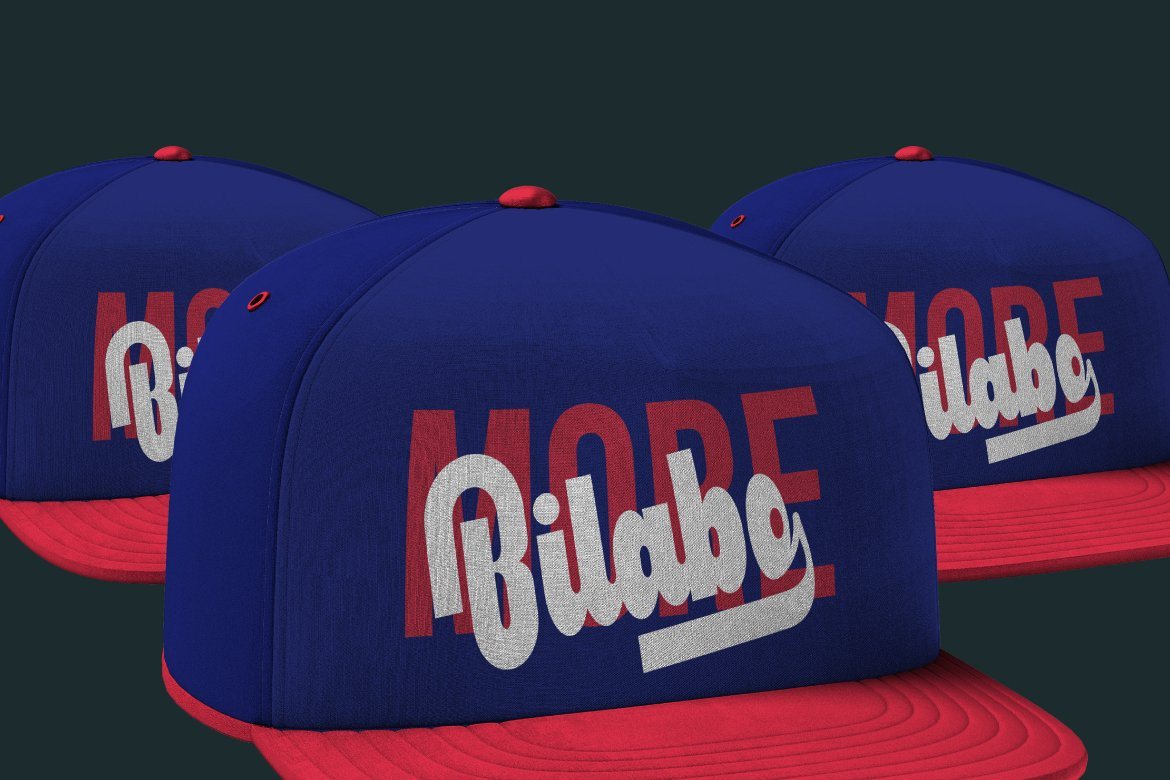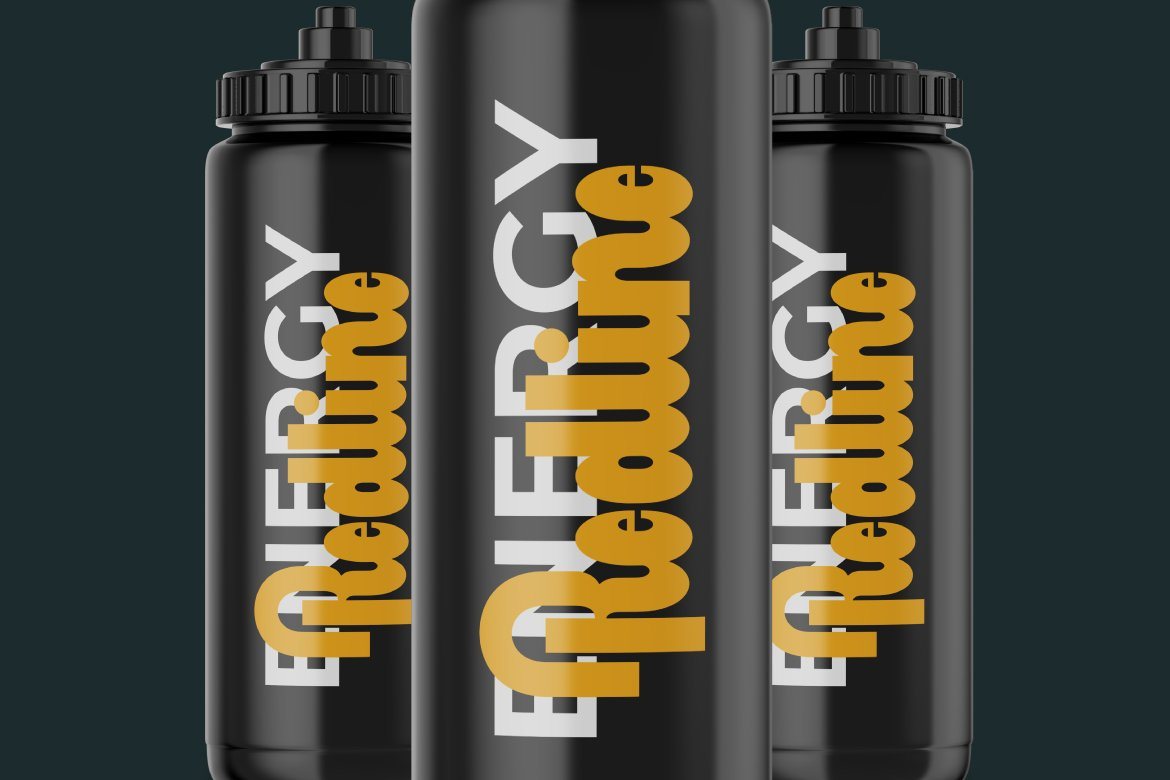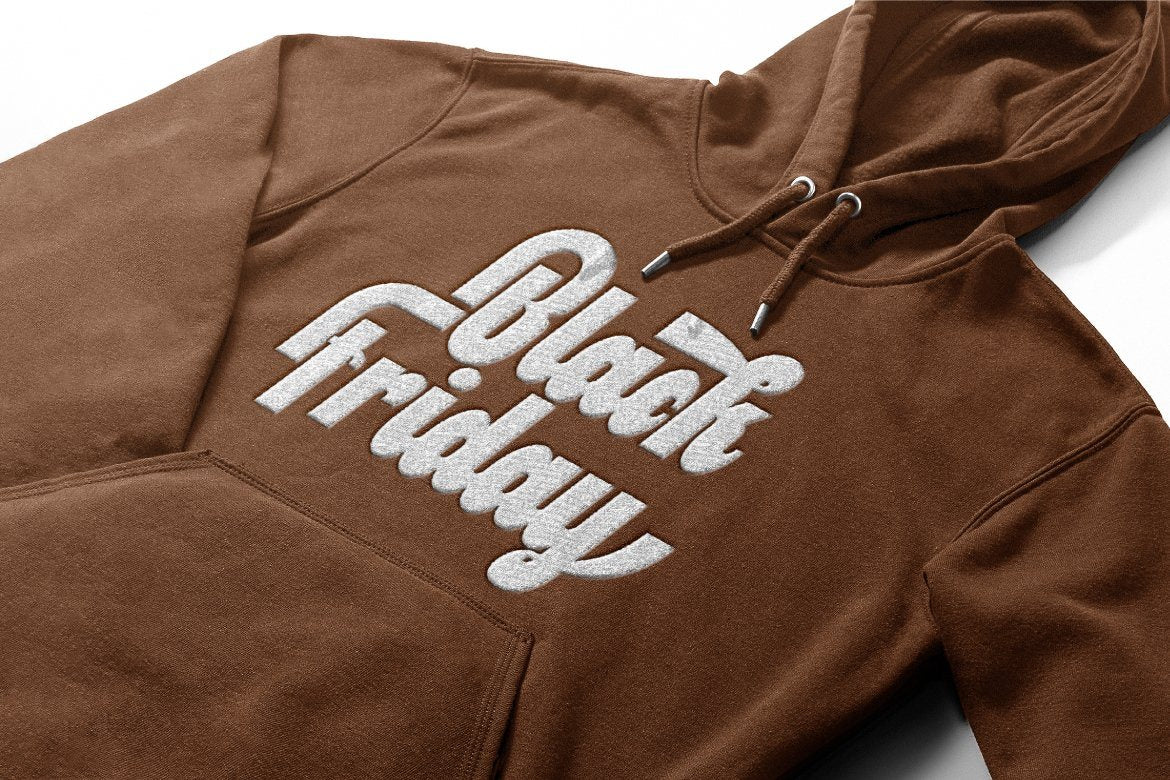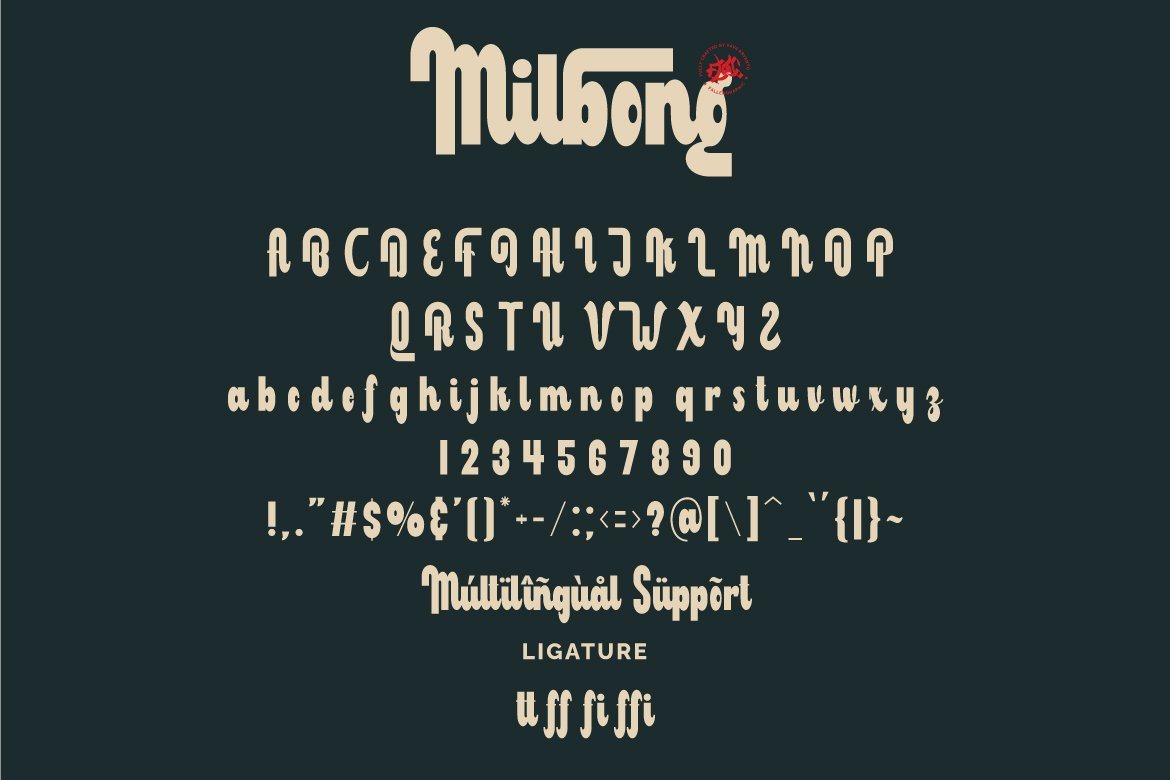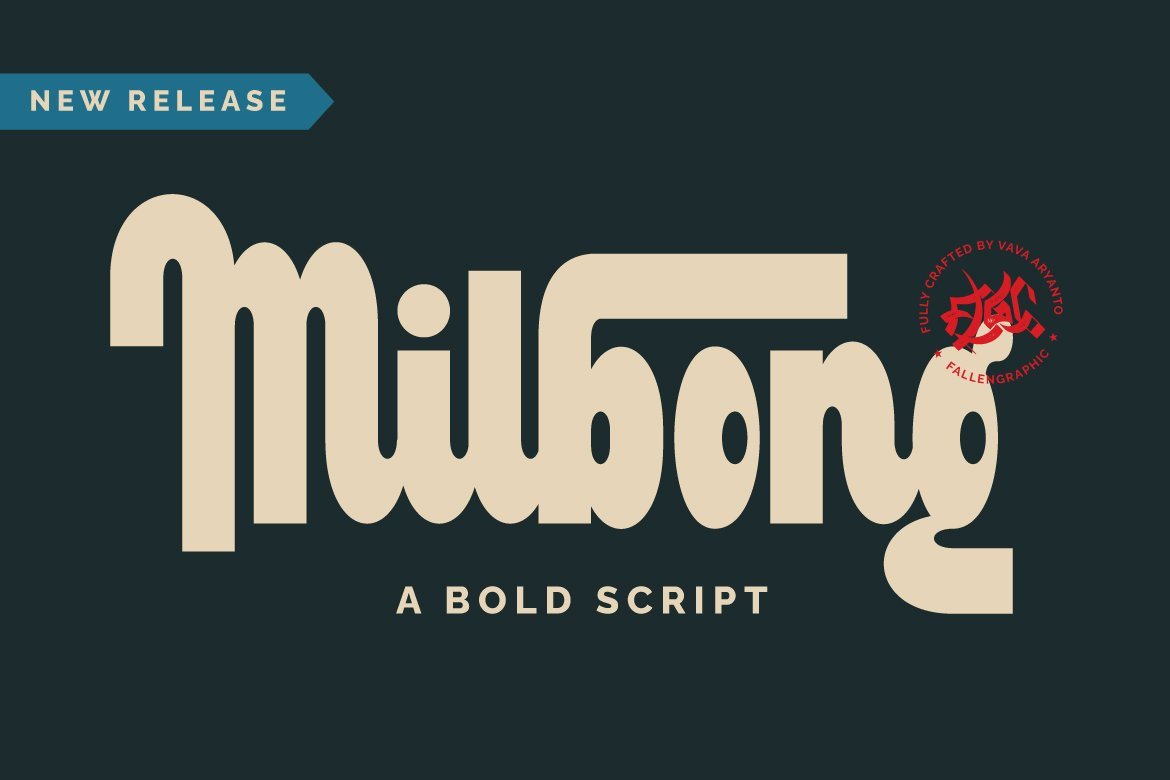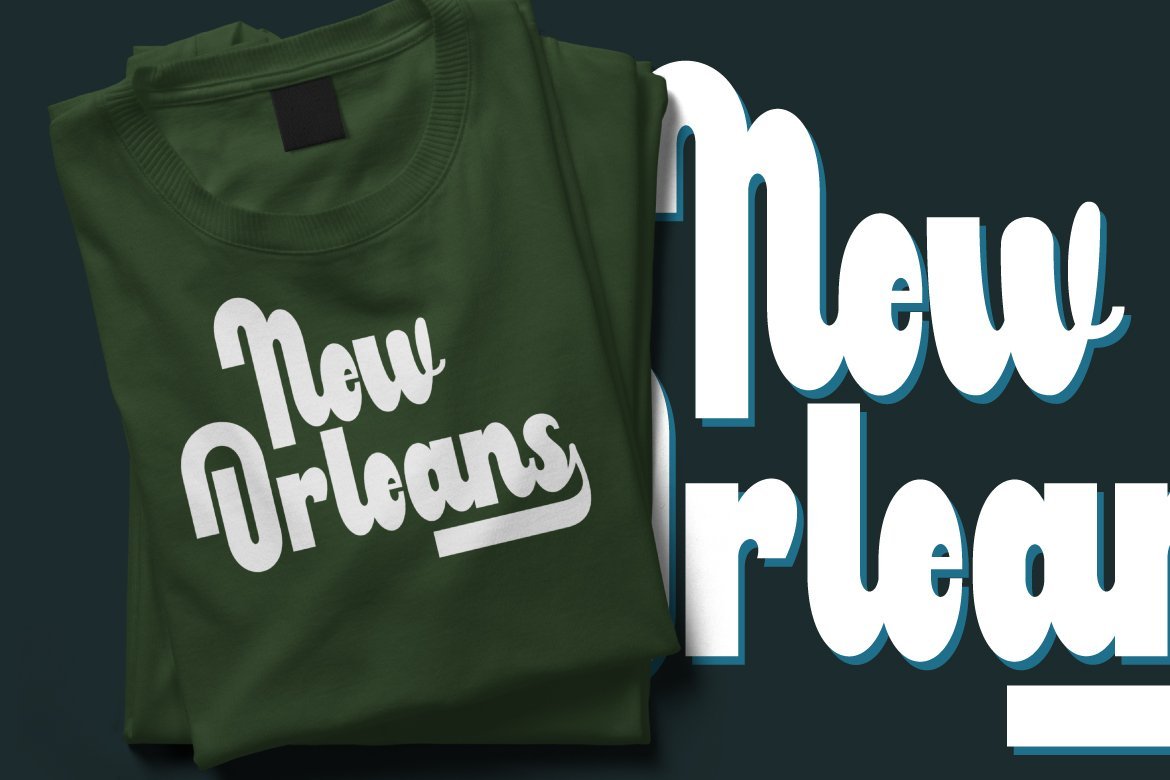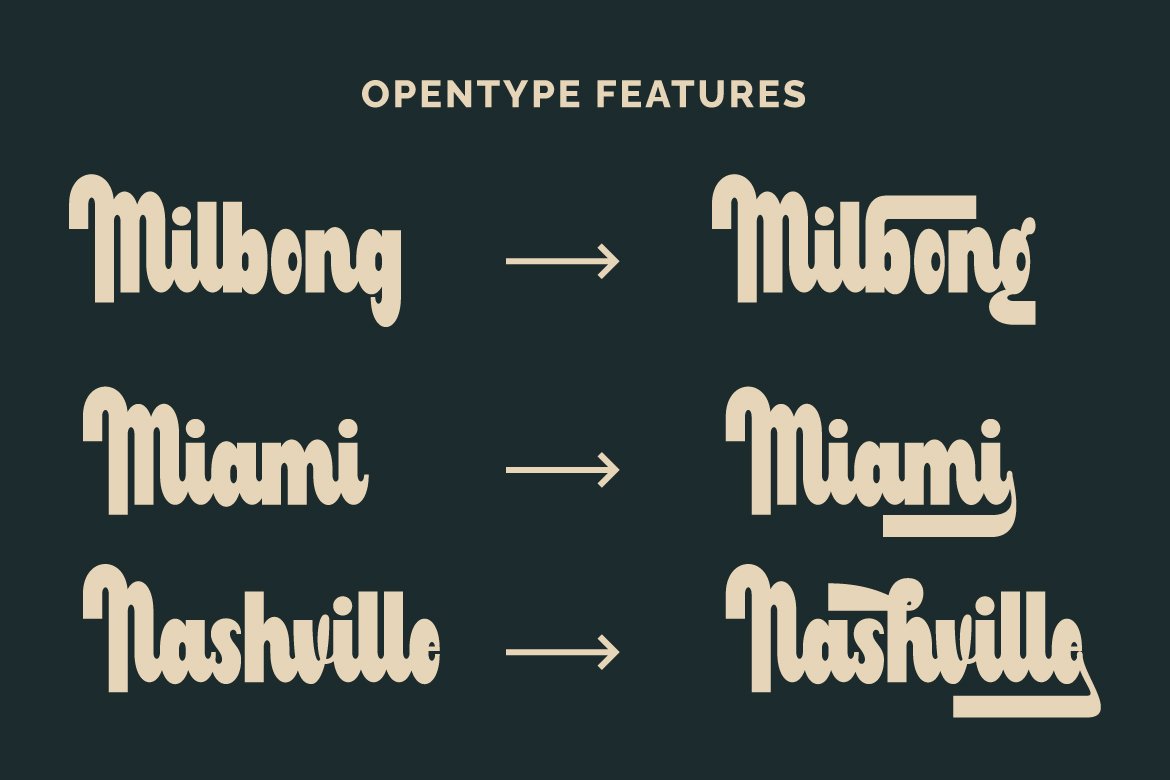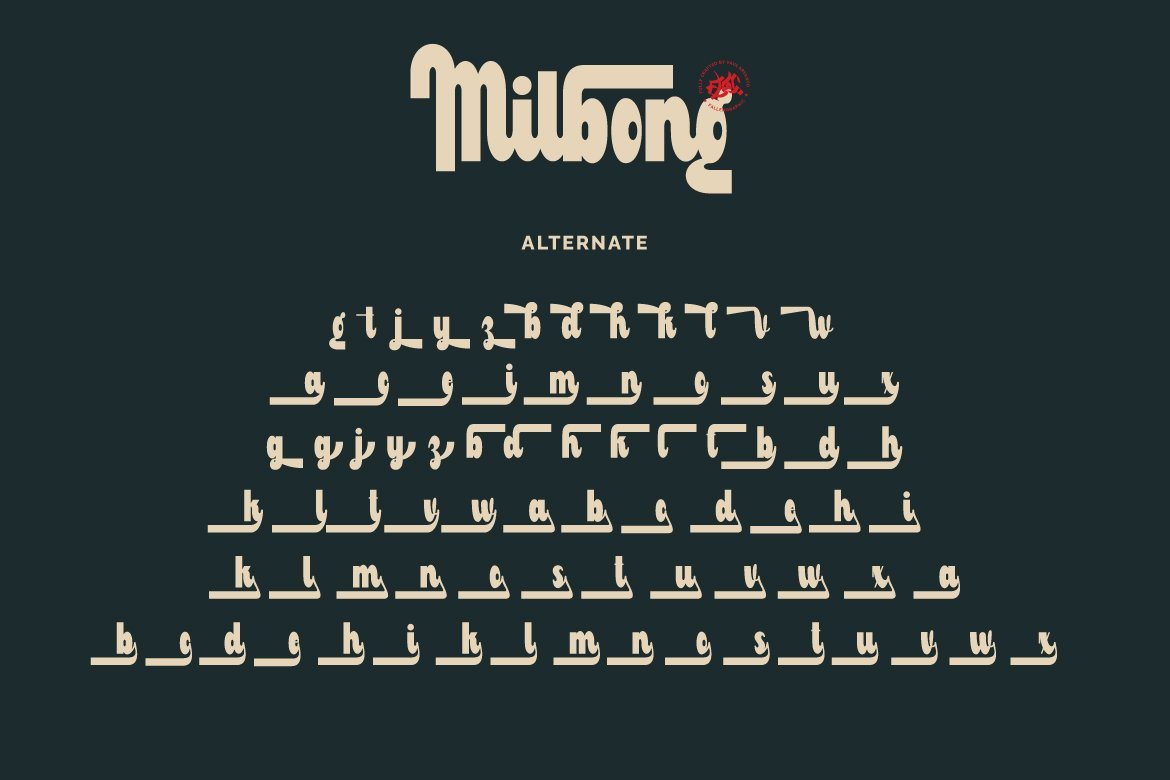
Milbong
About Milbong
Milbong font under inspiration of vintage bar signage, hotel signage, barbershop signage ect. Milbong has a classic impression but still elegant suitable for modern and classic designs project.Milbong are perfect for badge, label, tshirt design, branding, logotype, poster, book cover, packaging and more. PRODUCT INCLUDE: MilbongRegular. otf Milbong Regular. ttf Milbong Regular. woff FEATURES : Character Set A-Z Numberal Accents (Multilingual characters) PUA encode Alternates Ligature MULTiLINGUAL ACCENT žŠŒšŸÀÁÂÃÄÅÆÇÈÉÊËÌÍÎÏÐÑÒÓÔÕÖØÙÚÛÜÝßàáâãäåæçèéêëìíîïðñòóôõöøùúûüýÿ